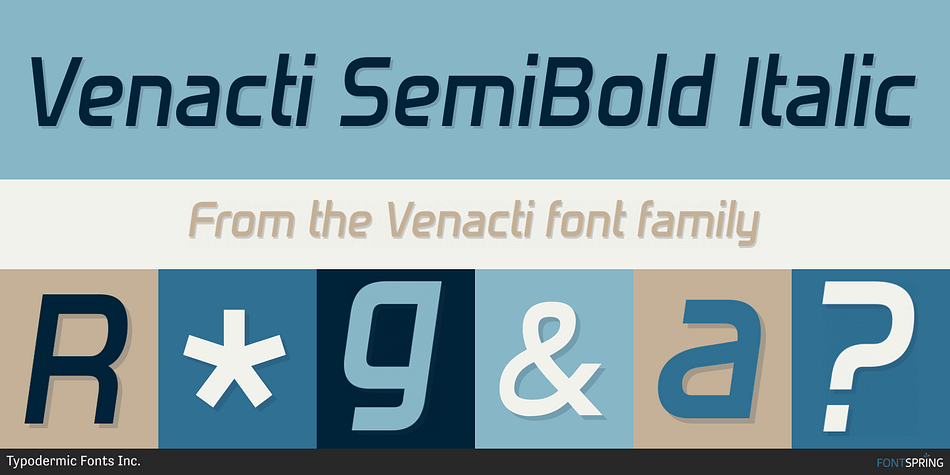
Venacti SemiBold Italic
Venacti is a sans serif font family. This typeface has six styles and was published by Typodermic Fonts Inc.
Introducing Venacti, the typeface that embodies the spirit of the industrial era. Inspired by the bold and powerful logotypes of the 1970s, Venacti is a typeface designed for the modern age.
Featuring a robust and futuristic style, Venacti’s square letterforms and sleek corners exude a distinct scientific vibe, making it the perfect choice for any project that demands a technical and industrial edge.
With three weights and italics, Venacti offers versatility and flexibility that makes it ideal for a wide range of applications, from branding and marketing to editorial and packaging design.
Venacti’s bold and confident appearance is perfect for making a statement, while its clean lines and geometric shapes give it a timeless quality that will never go out of style.
Whether you’re designing a cutting-edge tech startup or a retro-inspired brand, Venacti is the typeface that will help you stand out from the crowd. So why settle for anything less than the best? Choose Venacti and let your creativity take flight.